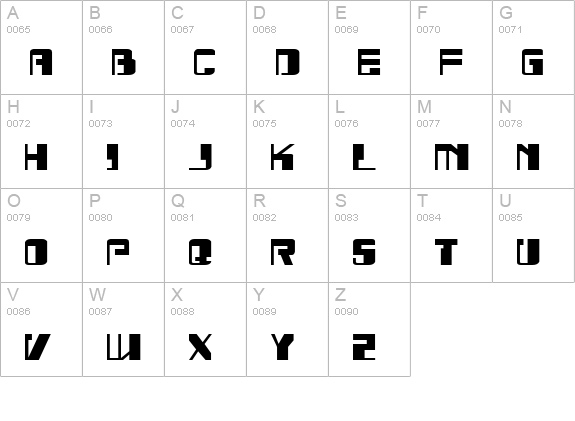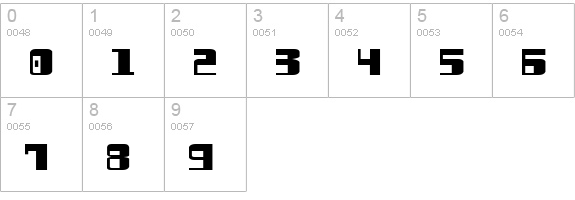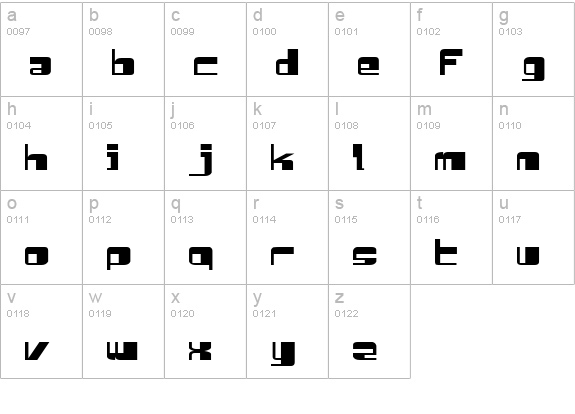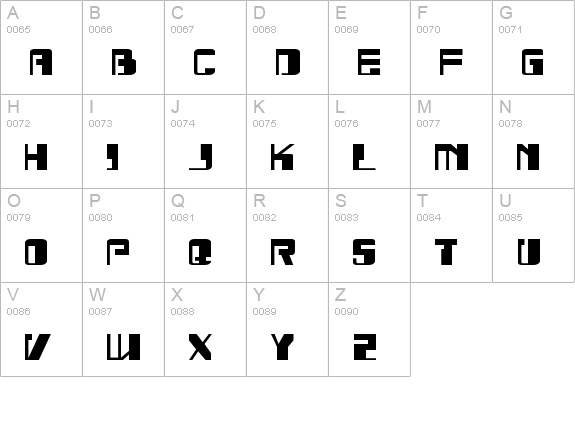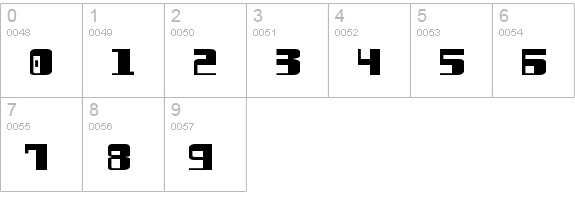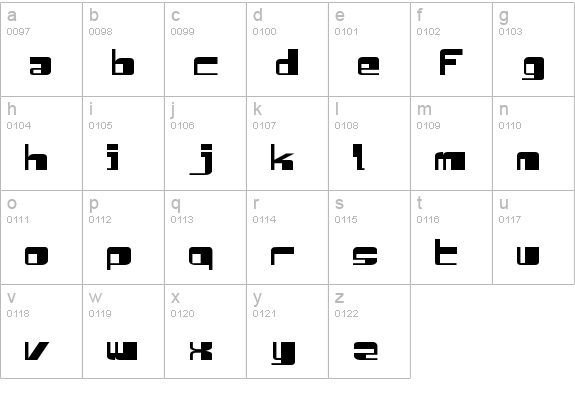
Drosselmeyer Expanded Font Details
Drosselmeyer Expanded is a distinctive, extended-width variant in the Drosselmeyer typeface family \xE2\x80\x94 well suited to design and typography projects.
Drosselmeyer Expanded font is a stunning and versatile typeface that exudes elegance and sophistication. With its elongated and sleek letterforms, this font is perfect for adding a touch of class to any design project. Whether you're creating invitations, posters, logos, or branding materials, Drosselmeyer Expanded will make your text stand out with its unique style. The best part? Drosselmeyer Expanded font is available for free download at FontsMarket.com! This means you can easily access this beautiful font and use it in your personal and commercial projects without any cost. Don't miss out on this opportunity to elevate your designs with Drosselmeyer Expanded font - download it now and let your creativity soar!